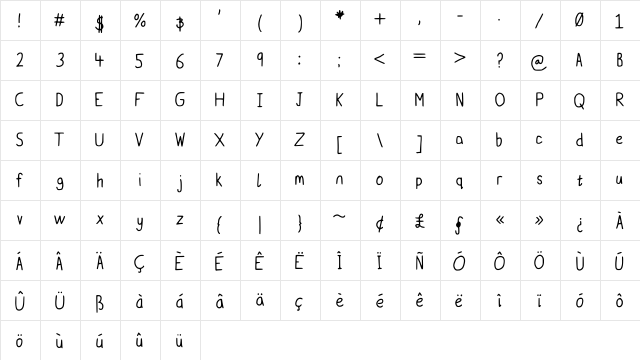
billbonessans Medium
Design Context for billbonessans Typeface
billbonessans offers clean, dependable letterforms without strong stylistic allegiance, making it a practical choice for designers who need flexibility.